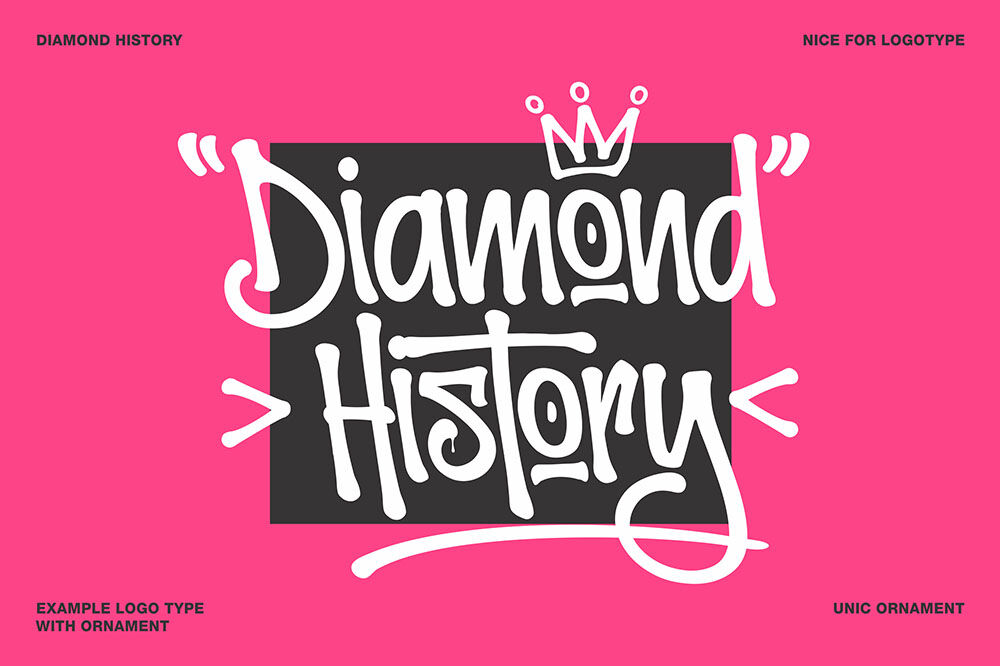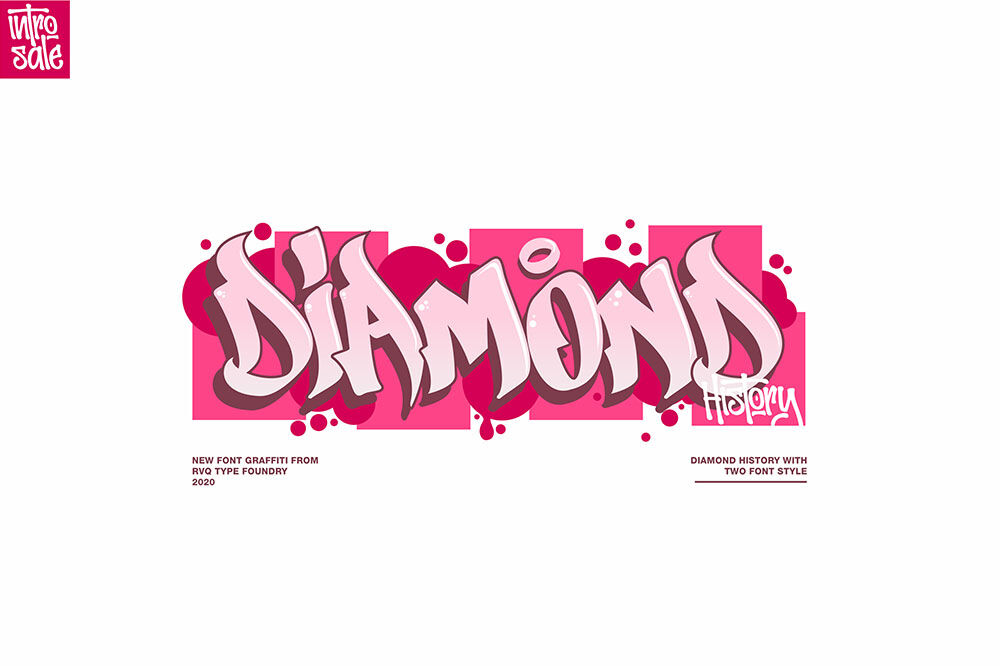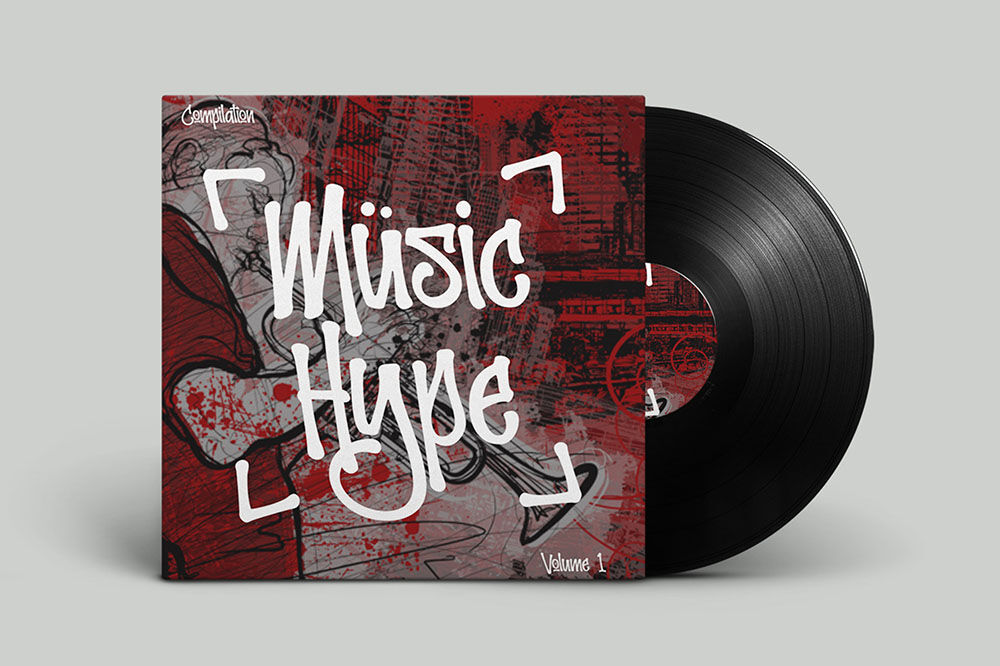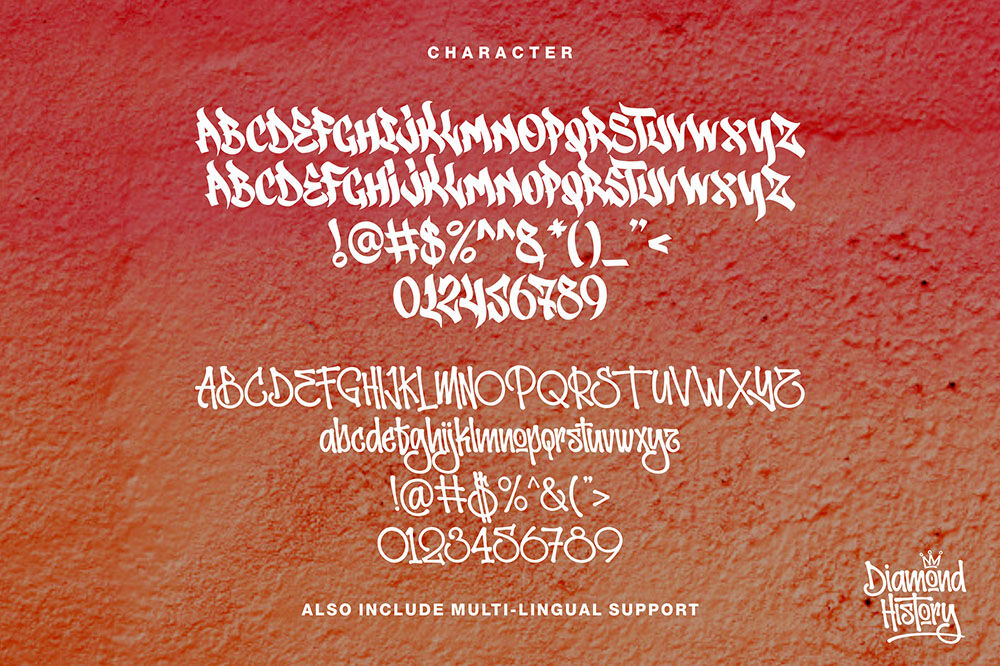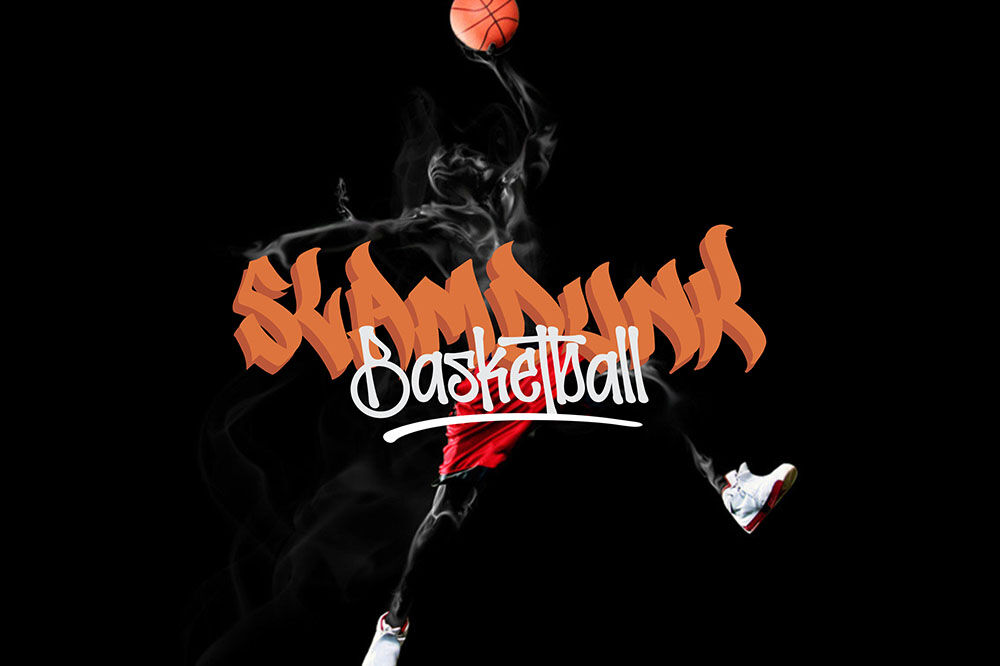
Diamond History Graffiti (font duo)
Diamond History The Diamond History is new font duo graffiti style from Rvq Typefoundry, elegant feel character set. nice fot logo type ,To create the beautiful combination, just mix the uppercase and lowercase. The Diamond History insfire from graffiti style. Product Content : Diamond History vector bonus Features : Character Set A-Z Numerals & Punctuations (OpenType Standard) Accents (Multilingual characters) Swash and ornament   Diamond History is suitable font for many creative products & designs. Thank you for purchasing and happy designing